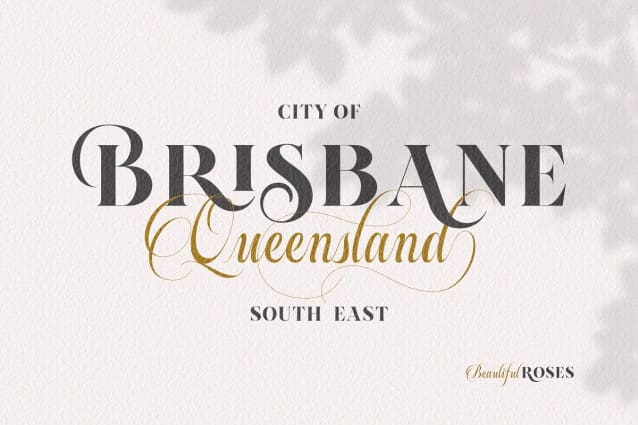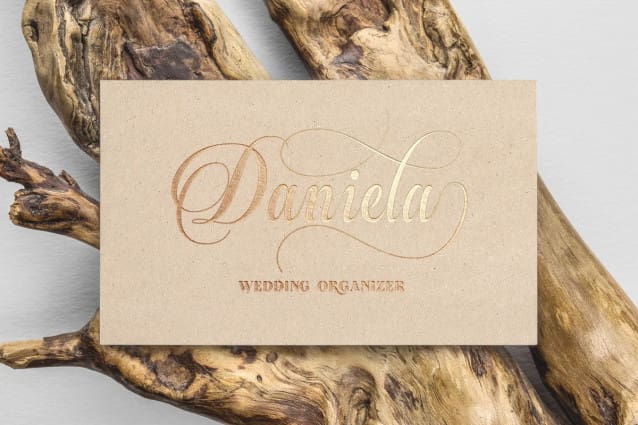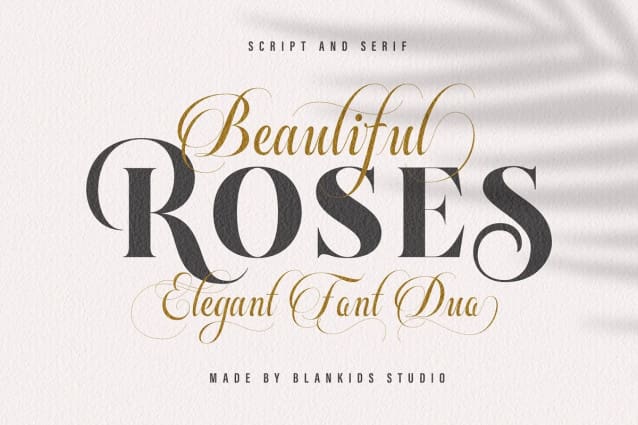
Beautiful Roses Font
Beautiful Roses Font a new duo font serif and script. BeautifulRoses good for logotype, poster, badge, wedding invitation, book cover, tshirt design, packaging and any more.
Multilingual Accent : ŽžŠŒšŸÀÁÂÃÄÅÆÇÈÉÊËÌÍÎÏÐÑÒÓÔÕÖØÙÚÛÜÝßàáâãäåæçèéêëìíîïðñòóôõöøùúûüýÿ ( BeautifulRoses Script and Serif )